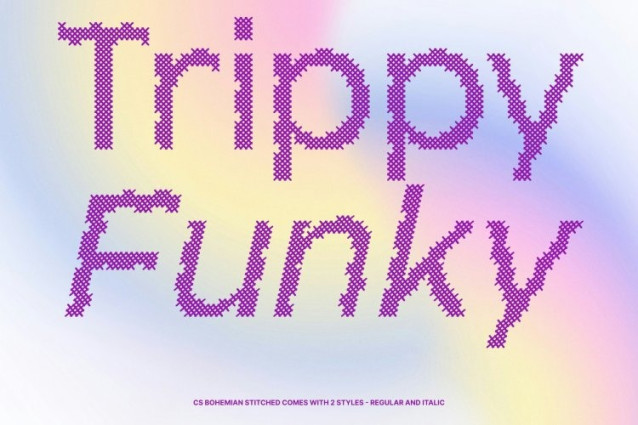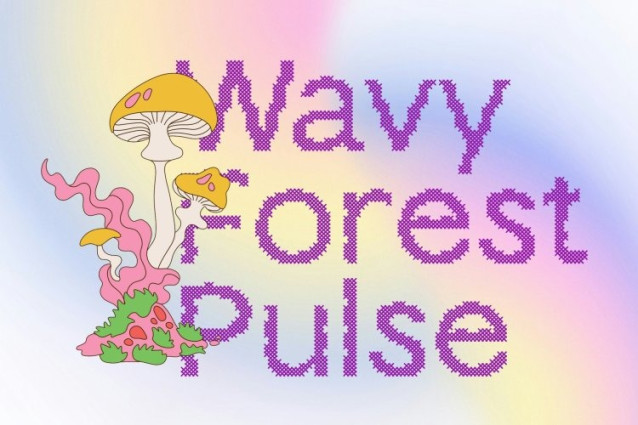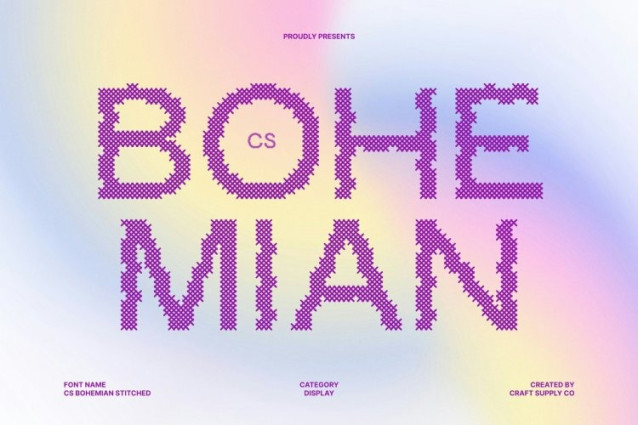
CS Bohemian Stitched Font
CS Bohemian Stitched Font – This is a modern sans-serif font that merges sleek contemporary structure with expressive psychedelic forms. Its letterforms feature dynamic curves, flowing distortions, and playful twists that create a bold and experimental visual identity. Enhanced with a stitched style inspired by thread sewn or embroidered on fabric, this version introduces a handcrafted dimension that softens the futuristic shapes with a warm, tactile character.
Dynamic Forms with Embossed Stitch Detail
The energetic, psychedelic shapes of this font are complemented by a distinctive cross-shaped stitch pattern that creates an embossed, fabric-like texture across each character. This stitched detailing enhances the depth and visual richness of the font, adding a classic, nostalgic, relaxed, and warm impression while preserving its bold and unconventional personality.
Expressive Typography with Creative Energy
With its twisting curves and unconventional forms, this font delivers a vibrant and imaginative typographic presence. The clean sans-serif structure ensures clarity and modernity, while the psychedelic influences and stitched texture create a unique fusion of artistic experimentation and handcrafted style.
Perfect for Creative, Experimental, and Bold Designs
This is ideal for posters, music visuals, event promotions, branding, packaging, and editorial designs that seek a vibrant and distinctive look. Its combination of psychedelic creativity and stitched texture makes it especially suited for projects that aim to express individuality, artistic freedom, and contemporary style while maintaining a memorable visual identity.